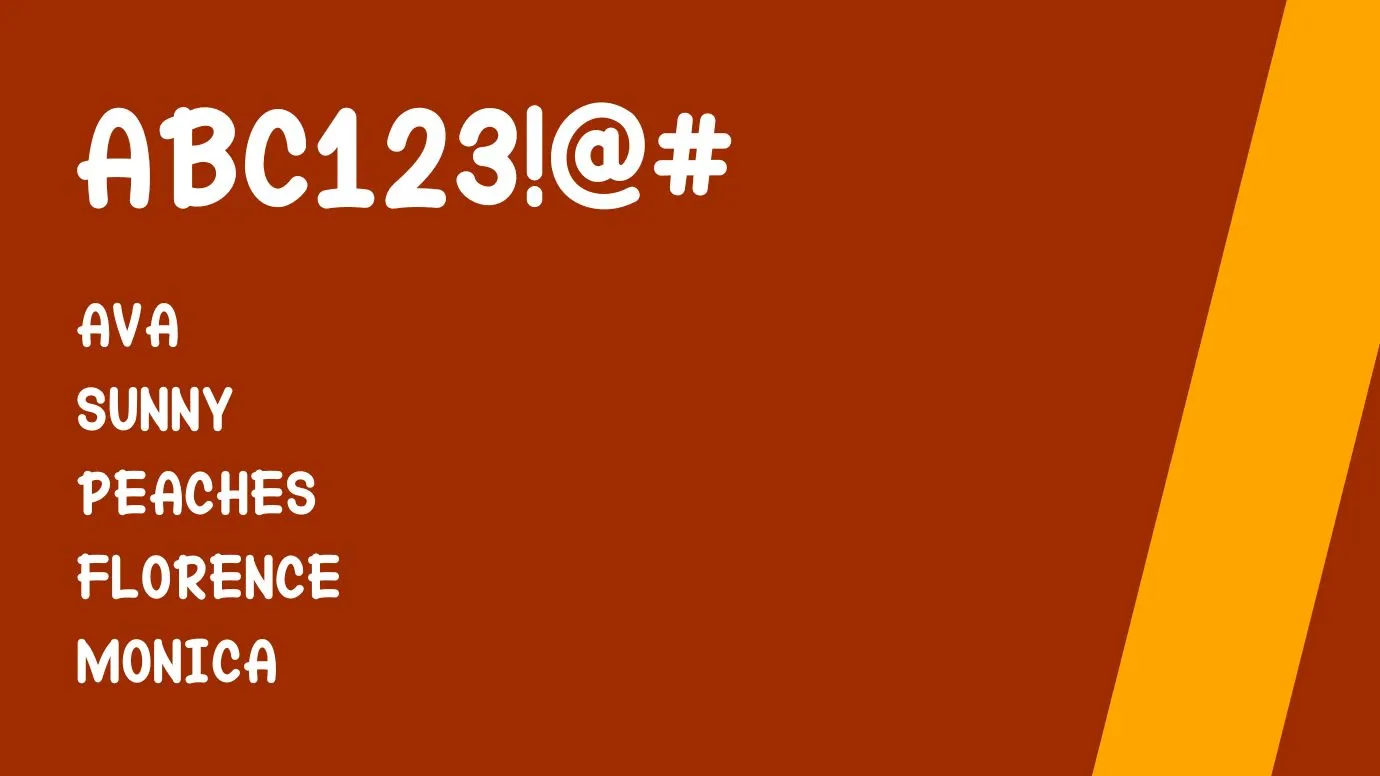
Let us introduce you to an amazing font, Yellow Cat Font is a fun and cheerful comic font that was designed by a famous designer Polah Type. It is perfect for all your fun designs.
It is a great choice for highlighting your designs for example boingo font also comes in the same family while all the characters are in good shape. The Regular Weight is a lovely typeface to meet our daily requirements, giving a glimpse of festivity, besides meeting all our demands like creating name cards, posters, logos, magazines, covers, and even large-scale art-works.
Creator of Yellow Cat Font
The comic typeface has been created by Polah Type. The typeface is perfect for all your fun designs.
Which typeface is used in the logo of Yellow Cat?
Yellow Cat is a fun and cheerful comic typeface. The texture is unique of its own belonging to the comic family.
Where can I utilize the Yellow Cat typeface?
The typeface can be used in creating name cards, posters, logos, magazines, covers, and even large-scale art-works besides other design projects.
Does the Yellow Cat typeface have an affecting touch?
The typeface has a calming influence. The typeface is fun-like with a wide range of innovativeness
Is the Yellow Cat typeface considered professional?
The typeface is comic bringing a lot of joy and refreshment to your projects. You cannot be considered a professional typeface.